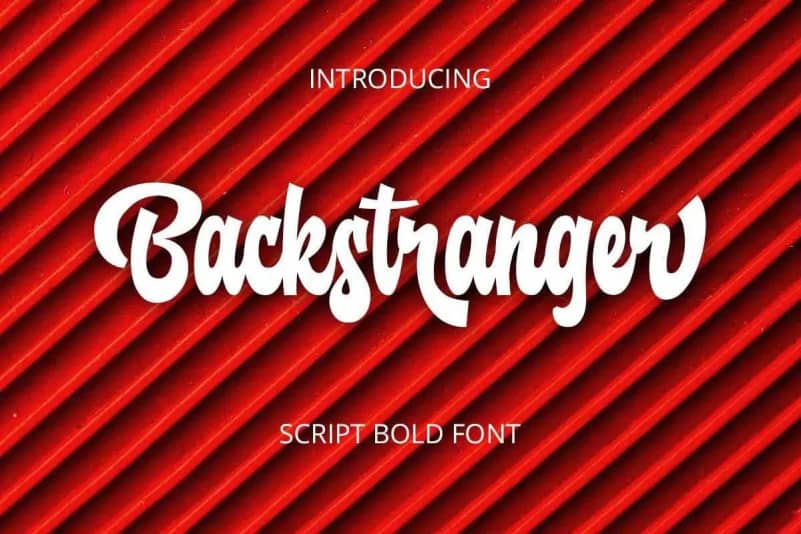
Backstranger – Bold Script Font
Backstranger is a bold script font, carefully handcrafted to become a true favorite. Its casual charm makes it appear wonderfully down-to-earth, readable and, ultimately, incredibly versatile.
This font will look outstanding in any context, whether it’s being used on busy backgrounds or as a standalone headline! This font is free for personal use.